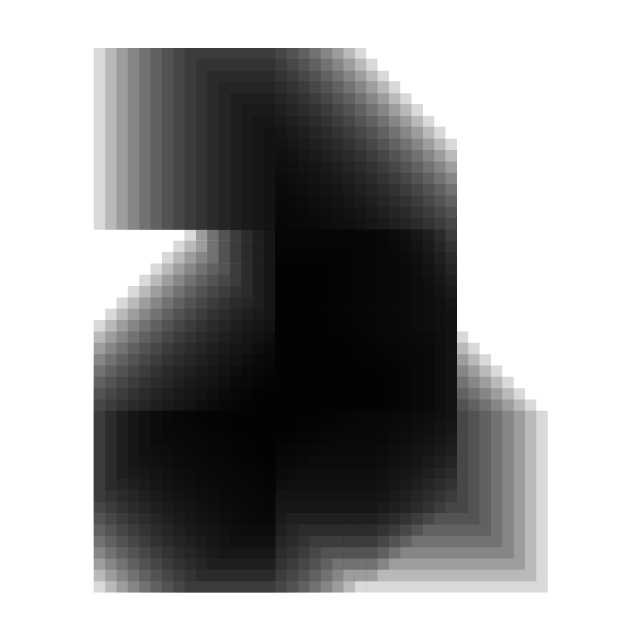
Blozend Typeface
Blozend is the second alphabet I have made. Designed in 2010 Blozend's only intention is display typography, with a ...von Dani Montesinos am 03.03.2011